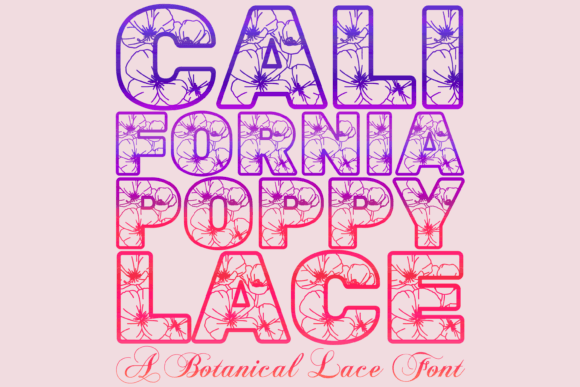
Behold the Floral Majesty of California Poppy Lace, an Enchanting Decorative Font Family.
Step into the Realm of Enchantment, where the delicate petals of California Poppy Lace dance and swirl to create a symphony of elegance and beauty. Inspired by the intricate lacework of nature, this font embodies the spirit of romance and femininity.
With California Poppy Lace, every word is a work of art, a masterpiece spun from the threads of intricate botanical motifs. Bring your creative visions to life with this single-line font, perfect for Cricut, vinyl designs, delicate wedding invitations, or any crafting project that yearns for a touch of refined grace.
Unleash your imagination and transport yourself to a realm of blossoming poppies, where words bloom into ethereal beauty. California Poppy Lace is your gateway to a world of endless possibilities, a font carefully crafted to ignite passion and inspire creativity in every stroke.
Embrace the allure of California Poppy Lace and let it adorn your creations with the soft whispers of spring. Each letter, meticulously designed, carries the essence of an enchanted garden, inviting you to create personalized treasures that speak to the heart.